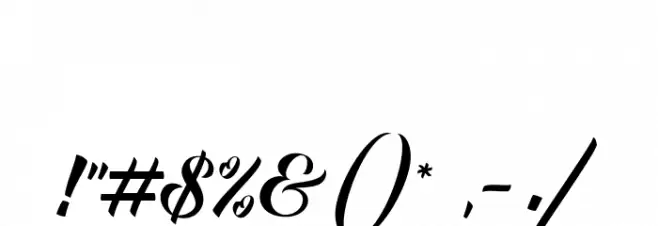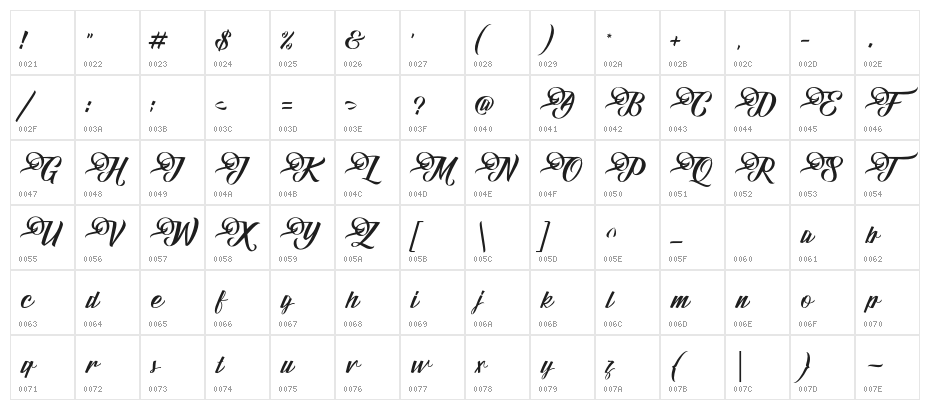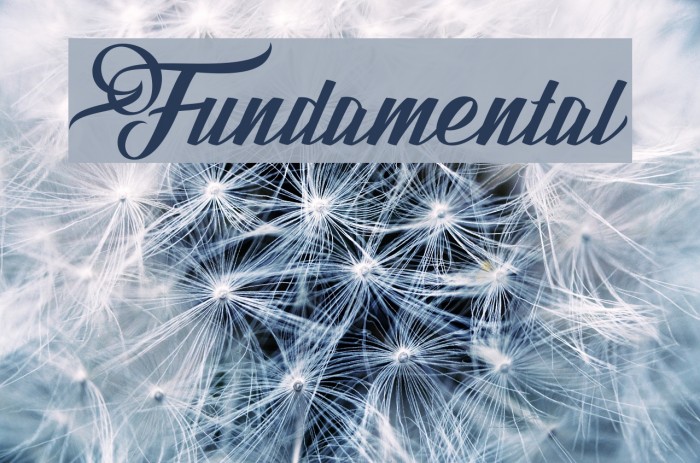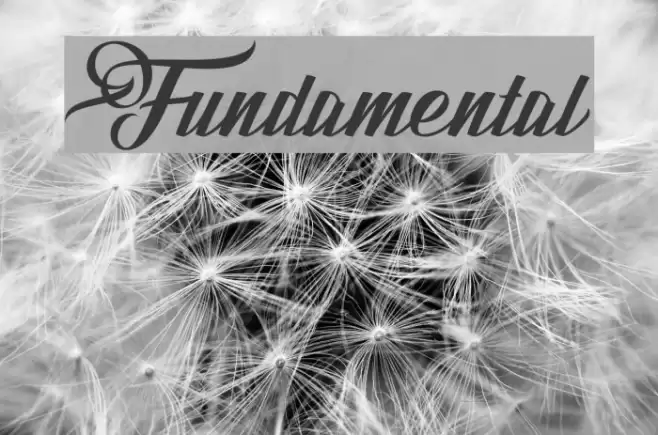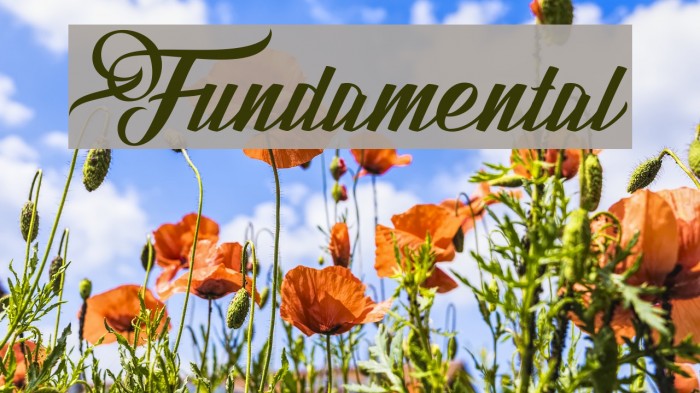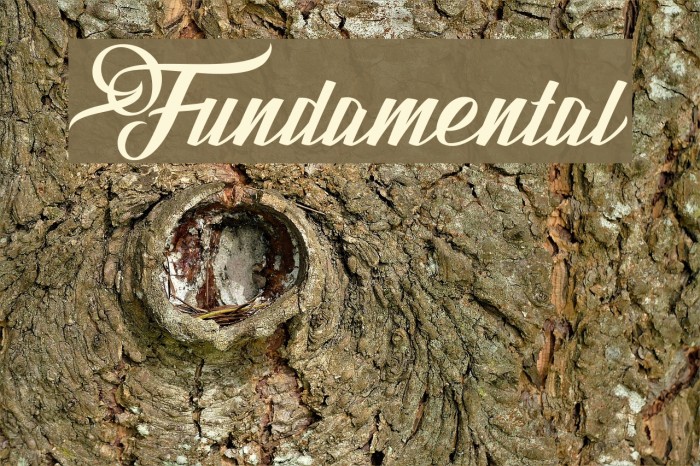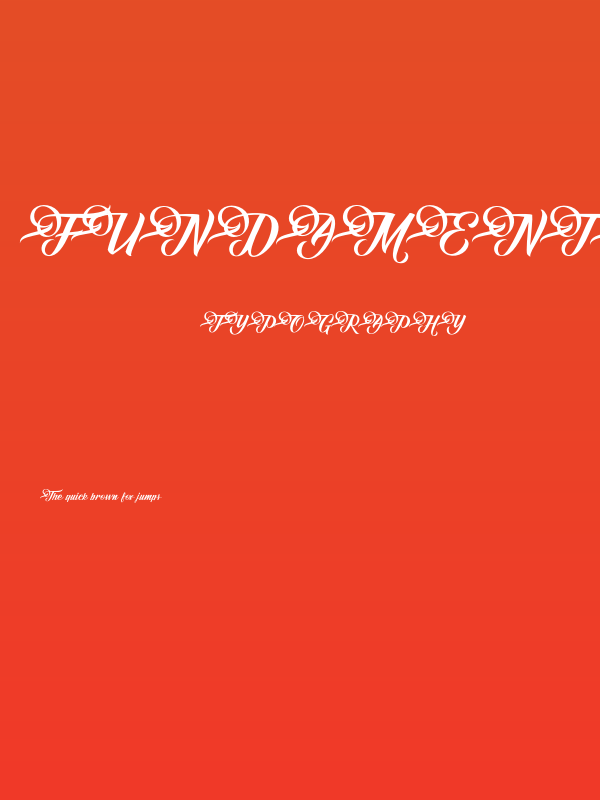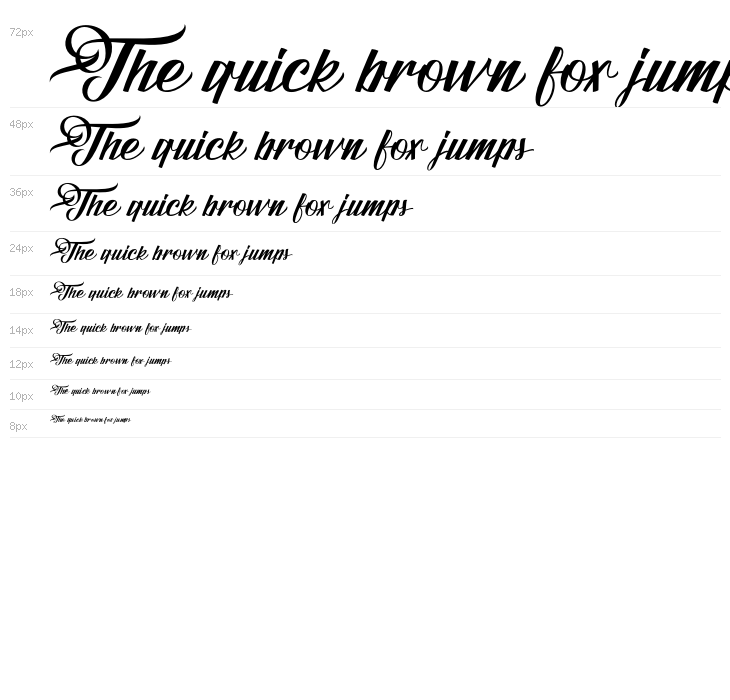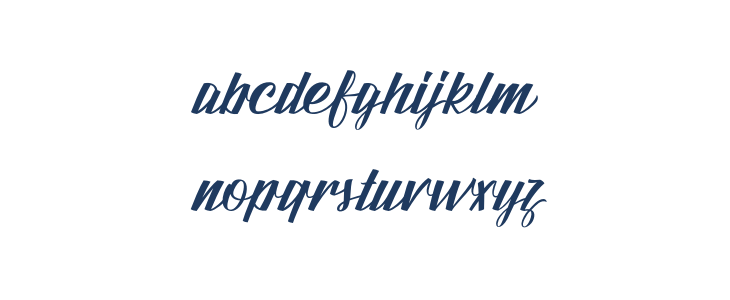
Fundamental Font
Fundamental Description
This font features an elegant and flowing script style, characterized by its ornate and decorative letterforms. The uppercase letters exhibit intricate loops and flourishes, adding a sense of sophistication and grace. The lowercase letters maintain a smooth and connected appearance, enhancing readability while preserving the font's artistic flair. The numerals and special characters are designed with similar attention to detail, ensuring consistency across all glyphs. This font's overall aesthetic is both classic and decorative, making it suitable for a variety of creative applications.
| Overall Style | Classic, Decorative |
| Use Case | Logos, Invitations, Decorative Text |
| Proposed Projects | Ideal for wedding invitations, greeting cards, branding, and elegant packaging designs. |